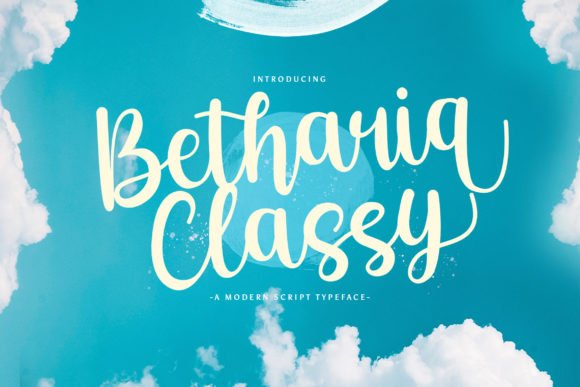
Discover the Perfect Script: Elevate Your Designs with Betharia Classy Font
As designers, we’ve all been there – staring at a blank page, trying to find the perfect font to bring our creative vision to life. The perfect script can make or break a design, and when you finally find it, it’s like a breath of fresh air. For me, that moment came when I discovered the Betharia Classy Font. Its bold yet delicate swashes immediately caught my eye, and I knew I had to learn more.
The Betharia Classy Font is a modern script font designed to elevate a wide range of design projects. Whether you’re working on branding, headings, wedding designs, or invitations, this font is sure to impress. Its versatility and sophistication make it a valuable tool for designers looking to take their work to the next level.
Betharia Classy Font Key Features
- Font Style: Elegant and sophisticated, ideal for formal and professional applications.
- Unique Characteristics: Features a unique blend of modern and classic elements, giving it a distinctive and sophisticated look.
Betharia Classy Font Review
Overall, I found Betharia Classy Font to be a stylish and elegant addition to any design project. ✨ It’s perfect for creating a sophisticated and refined look, especially when used in business or luxury branding contexts.
Here are some of the things that worked well for me:
- ✨ Excellent legibility: The font is clear and easy to read, even at smaller sizes.
- ✨ Versatility: Betharia Classy Font can be used in a variety of applications, from logos to body text.
- ✨ High-quality design: The font is well-crafted and has a professional feel to it.
- ⚠️ Limited character set: The font only includes a limited set of characters, which may be a problem for non-English language support.
- ⚠️ Not suitable for body text: While the font is great for headlines and titles, it’s not the best choice for large blocks of body text.
- ⚠️ May not render well on all devices: I noticed some issues with the font rendering on certain devices and browsers.
Overall, I think Betharia Classy Font is a solid choice for designers looking for a high-end, stylish font. While it has some limitations, it’s a great addition to any design project that requires a touch of elegance and sophistication.
Tips for Getting the Most Out of Betharia Classy Font
Use Betharia Classy Font for titles, headings, and body text to add a touch of elegance to your designs.
Pair the font with other elegant fonts or sans-serif fonts for a balanced look.
Experiment with different font sizes, colors, and settings to create unique and stylish typography.
Betharia Classy Font is ideal for:
Business cards and letterheads.
Magazine and newspaper headlines.
Alternatives to Betharia Classy Font
Playfair Display is a luxurious and elegant serif font, perfect for adding a touch of sophistication to your designs. It features intricate details and beautiful flourishes, making it ideal for high-end branding, luxury products, and formal invitations.
Comparison to Betharia Classy Font: While Betharia Classy Font has a vintage feel, Playfair Display is more modern and luxurious. Playfair Display is a better choice when you need a font that exudes high-end elegance.
Great Vibes is a beautiful and elegant script font, perfect for adding a touch of whimsy and romance to your designs. It features flowing lines and beautiful flourishes, making it ideal for wedding invitations, branding, and packaging.
Comparison to Betharia Classy Font: While Betharia Classy Font has a vintage feel, Great Vibes is more playful and elegant. Great Vibes is a better choice when you need a font that adds a touch of romance and whimsy to your designs.
What is the recommended font size for using Betharia Classy Font?
The recommended font size for Betharia Classy Font varies depending on the design context. For body text, we recommend using font sizes between 12 and 14 points. For headings and titles, you can use larger font sizes, up to 24 points or more. However, please experiment with different font sizes to find the optimal size for your specific design project.